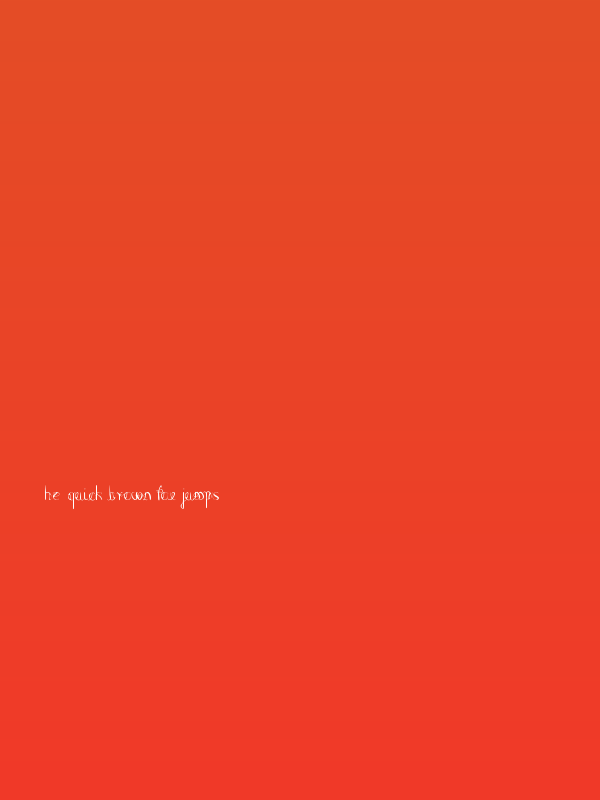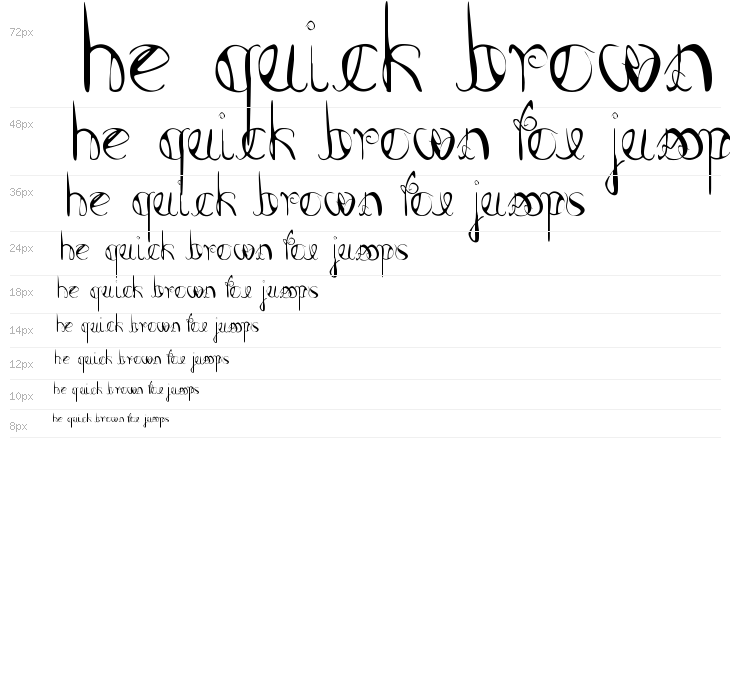
Femme Fatal Font
✎ Curly
| Caso d'uso | Logos, Invitations, Artistic Posters |
| Progetti proposti | Ideal for invitations, artistic posters, branding for luxury products, and creative editorial design. |